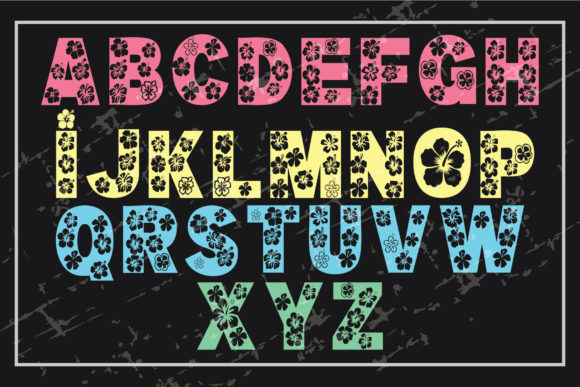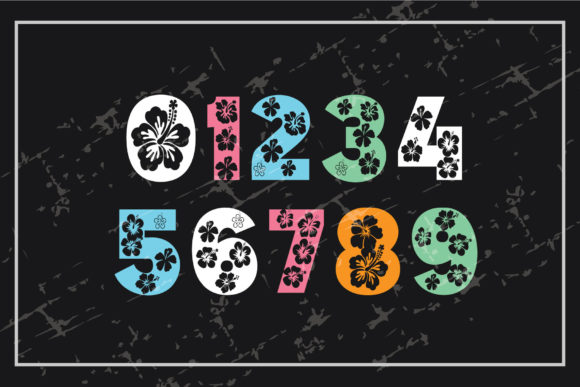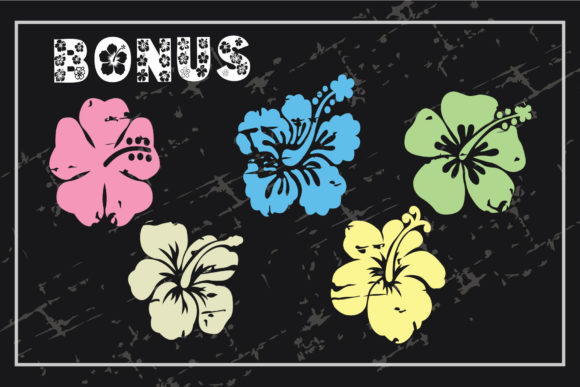
Aloha Summer Vibes: Elevate Your Designs with This Fresh Font
Summer is in the air, and so is the creative spark that comes with it. You know the feeling – the sun is shining, the music is playing, and the ideas are flowing. You grab your favorite craft supplies, and the next thing you know, you’re making memories and masterpieces. But what’s missing from your creative mix? A font that captures the essence of this carefree season, of course!
Enter the Aloha Summer Font, a cool, fresh, and summery decorative font that’s perfect for any project. Whether you’re crafting, designing digitally, creating presentations, or making greeting cards, this font is ready to use and elevate your designs to the next level. As a designer, you know the importance of having the right tools to bring your vision to life, and the Aloha Summer Font is a valuable addition to your creative arsenal.
Aloha Summer Font Key Features
• Unique Characteristics: Features a unique blend of tropical and vintage elements, perfect for summer-themed designs
• Font Style: Includes a range of font styles, from casual to elegant, to suit various design needs
Aloha Summer Font Review
Aloha Summer Font is a refreshing and vibrant font perfect for summer-themed projects or anything that needs a tropical feel. ✨ The font’s friendly and approachable nature makes it ideal for use in branding, advertising, and social media campaigns.
• The font’s unique and playful characters make it stand out from the crowd. ✨
• Aloha Summer Font is highly customizable, allowing designers to adjust the color, size, and spacing to fit their project’s needs.
• The font may not be suitable for formal or professional projects, as it can come across as too casual. ⚠️
• The font’s simplicity may make it prone to being misread or misinterpreted in certain contexts.
• Some characters may not be as legible at smaller font sizes, which could be a concern for projects that require a lot of fine print.
Aloha Summer Font is a fun and lively addition to any design project. While it may not be suitable for every project, it’s a great option for those looking to add a tropical twist to their branding or advertising. With its high level of customization and open license, it’s a great choice for designers who want to add some personality to their work.
Tips for Getting the Most Out of Aloha Summer Font
To get the most out of Aloha Summer Font, try the following:
• Use it for summer-themed designs, such as beach party invitations or summer vacation brochures.
• Combine it with other tropical fonts for a cohesive look.
• Experiment with different font sizes and colors to create visual interest.
Common Use Cases for Aloha Summer Font
The Aloha Summer Font is commonly used for:
• Summer-themed designs, such as beach party
Alternatives to Aloha Summer Font
Pacifico is a beautiful script font that is perfect for creating a warm and inviting atmosphere. It is ideal for use in branding, packaging, and editorial design. Pacifico has a more elegant and refined feel compared to Aloha Summer Font, which makes it suitable for more sophisticated designs.
Comparison: While both fonts are perfect for summer-themed designs, Pacifico has a more classic and timeless feel, whereas Aloha Summer Font is more playful and modern.